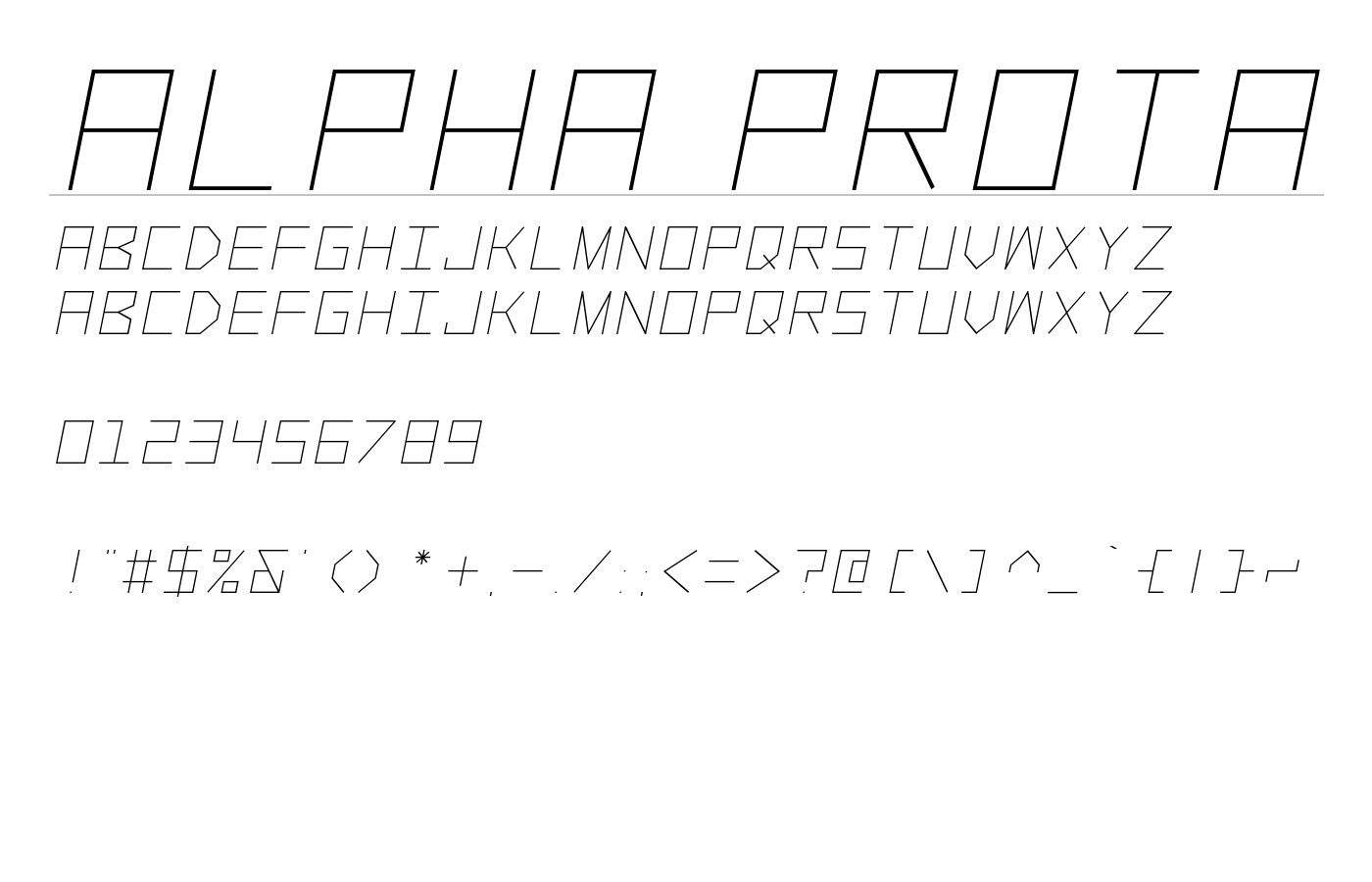
Alpha Prota is a sleek, modern sans serif font characterized by its ultra-light weight and narrow, condensed letterforms with sharp, geometric lines. Its unique angular shapes and minimal stroke contrast give it a futuristic, technical vibe, ideal for contemporary design projects seeking a clean and dynamic aesthetic. This font works especially well for logos, headlines, and digital interfaces where clarity and a modern edge are key.
Alpha Prota Font
About Alpha Prota Font
| Font family | Alpha Prota Font |
| Designer | GGBotNet |